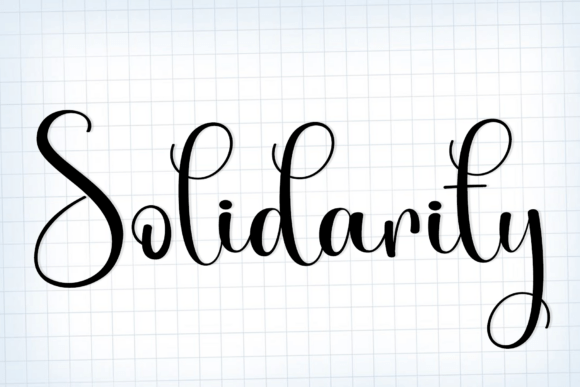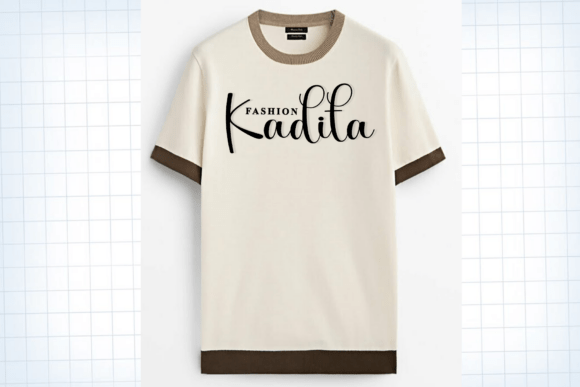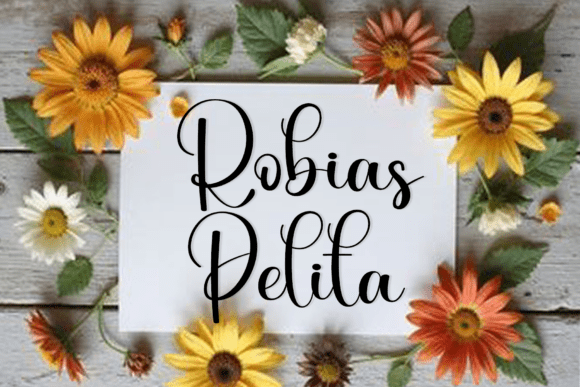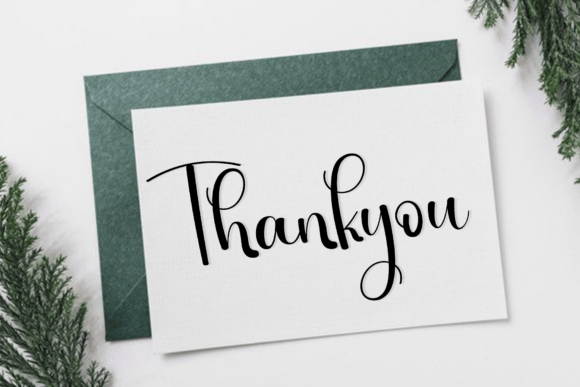
The Art of Elegant Typography
As a designer, there’s nothing quite like the thrill of discovering a new font that perfectly captures the essence of your creative vision. It’s that ‘aha’ moment when everything falls into place, and your brand’s personality shines through. For me, that moment came when I stumbled upon the Beauty Pilating Font – a sophisticated and rhythmic script font that exudes warmth and organic charm.
With its calligraphic style and looping ascenders, Beauty Pilating Font is a masterclass in balancing form and function. Its unique aesthetic makes it a premier choice for artisanal food branding, boutique product packaging, and upscale lifestyle marketing. Whether you’re crafting a bespoke label or a creative editorial title, this font is sure to elevate your design game. As a designer, having the Beauty Pilating Font in your toolkit is a valuable asset that can take your projects to the next level.
Beauty Pilating Font Key Features
- Unique Characteristics: The font features a unique blend of pilates-inspired symbols and modern typography, making it perfect for fitness and wellness-related designs.
- Character Set: The font includes a comprehensive set of characters, including uppercase and lowercase letters, numbers, and pilates-related symbols.
Beauty Pilating Font Review
At first glance, Beauty Pilating Font seems like a unique and intriguing choice for any design project. The font’s ✨ playful and elegant lines immediately caught my attention. It’s perfect for creating a sense of luxury and high-end quality, making it ideal for beauty and wellness-related branding.
- ✨ Elegant and sophisticated lines that evoke a sense of high-end quality
- ✨ Perfect for beauty and wellness-related branding, or any project that requires a touch of luxury
- ✨ Unique and eye-catching design that can help stand out in a crowded market
- ⚠️ Limited font sizes and styles, which may limit its versatility in certain design projects
- ⚠️ May not be suitable for projects that require a more modern or edgy aesthetic
Beauty Pilating Font is a solid choice for designers looking to add a touch of luxury and elegance to their projects. While it may have some limitations, its unique design and sophisticated lines make it a great option for beauty and wellness-related branding. With some creative thinking, designers can work around its limitations and create stunning designs that showcase this font’s best features.
Use the Beauty Pilating Font for beauty-related projects, such as:
1. Makeup tutorials
2. Skincare product labels
3. Beauty blog headers
4. Social media posts
Experiment with different font sizes and styles to create a unique look.
The Beauty Pilating Font is ideal for:
1. Beauty brands
2. Makeup artists
3. Skincare enthusiasts
4. Beauty bloggers
Alternatives to Beauty Pilating Font
Fontin is a calligraphic script font that mimics the elegance of handwritten text. It’s ideal for use in wedding invitations, branding, and packaging where a touch of sophistication is desired. Compared to Beauty Pilating Font, Fontin has a more refined and elegant feel, making it suitable for high-end designs.
Carolyna Pro is a modern script font that features a flowing and connected feel. It’s perfect for use in designs where a sense of movement and fluidity is required, such as in advertising, magazines, and social media. Compared to Beauty Pilating Font, Carolyna Pro has a more contemporary and dynamic feel, making it suitable for bold and eye-catching designs.